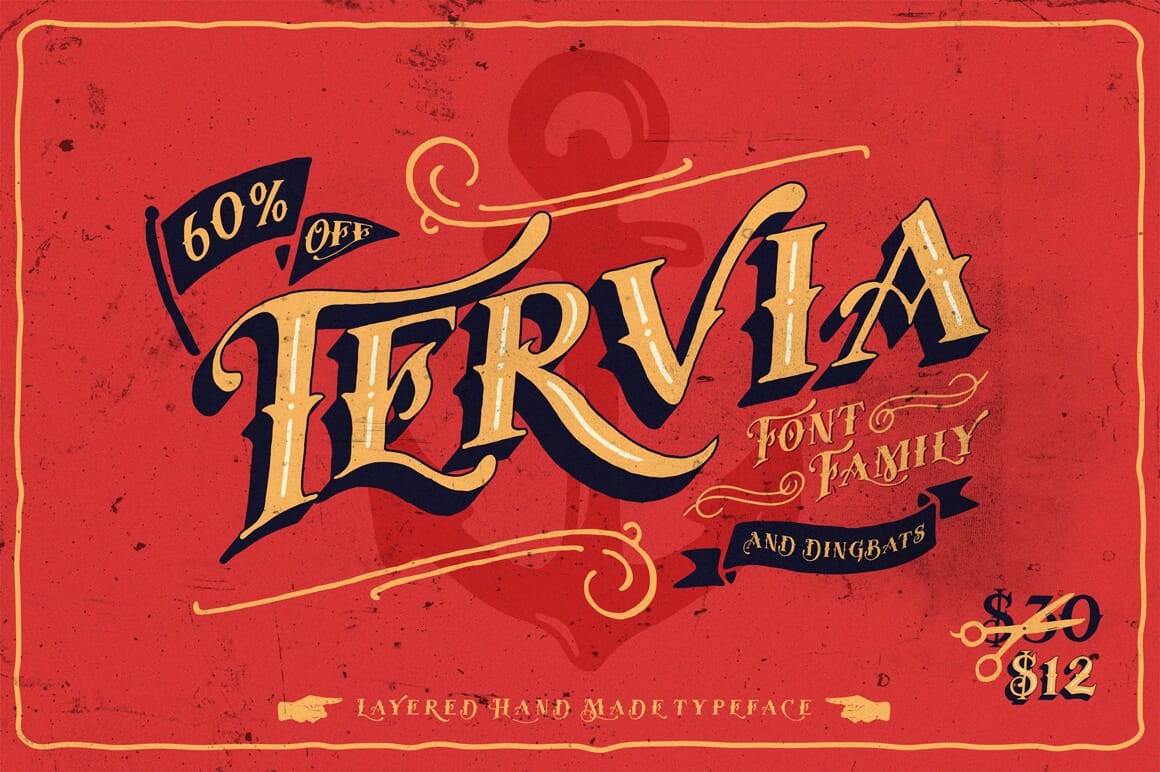
Add something classic, fun and cool to your typeface toolbox with this wonderful font-filled Mighty Deal. The Tervia Font Family sports 5 different fonts, including an entertaining dingbats set. Based on sign paintings, Tervia lets you access a variety of OpenType features and is perfect for everything from logos to posters to T-shirts.
- Get 5 fonts in 1 with the Tervia Font Family!
- Inspired by sign painting art, Tervia is a beautiful oldstyle handmade typeface.
- This high-quality font is a great choice for creating logos, posters, signs, labels, cards, T-shirts and more.
- This collection features 4 unique font styles and a dingbats set: Regular, Shadow, Shadow2, Inline and Extra.
- Take advantage of loads of great OpenType Features such as stylistic alternates, ornaments and multilingual support.